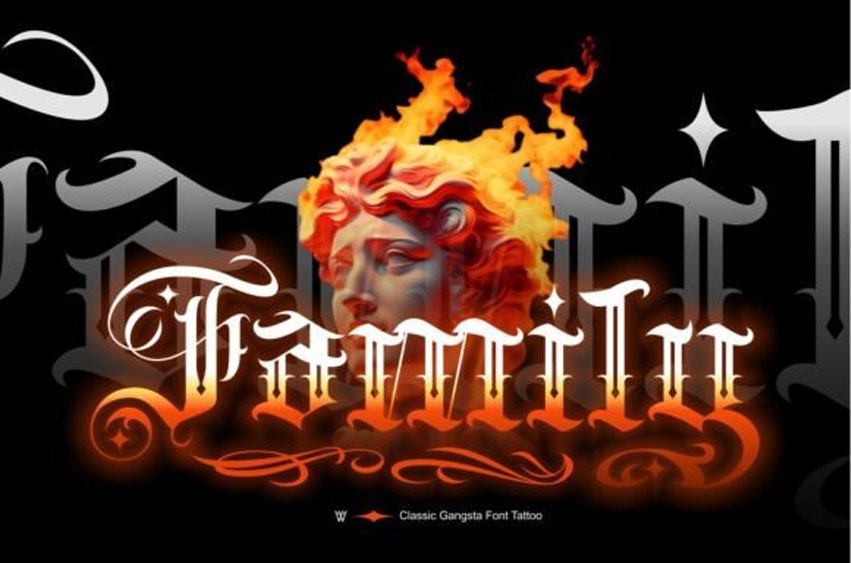
Family Font Elevate your design projects with our Family Gangsta Tattoo Font, meticulously crafted for artists and designers seeking authentic tattoo-inspired typography.
This collection features a diverse range of blackletter calligraphy fonts, perfect for custom tattoo designs, logos.